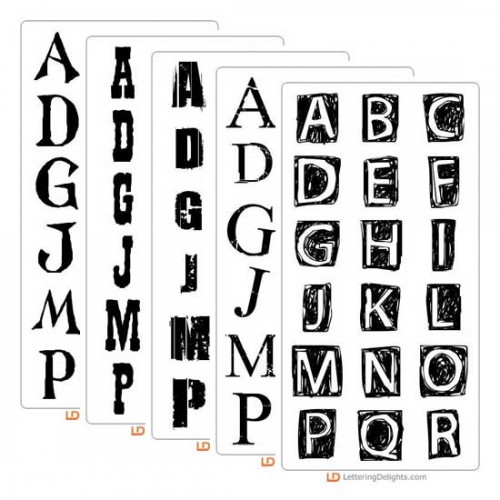
Fall Favs - Fonts
LDJ Scarecrow Scrawl - Font
This scratchy, whimsical new font from Jillustration looks like a scarecrow created it himself...
LD Farfetched - Font
This thick block style true type font has a unique look to it. Download and play with it to create ..
LD Old Country - Font
This old fashion font looks like it belongs on a saloon sign. If you've got old west style photos, f..
LD Grunge - Font
This fun font has a distressed look that is so popular. Give a 'grungy' look to your journaling or t..
LDJ Inclination - Font
You're eyes are not deceiving you...this font has a topsy-turvy style that will tickle your creative..
LD Weathered - Font
"Weathered" is a unique font that you'll want to have in your stash of creative lettering fonts. Its..
LD Verdant Leaves - Font
LD Verdant Leaves is a bold font with leafy designs sprouting from the thick lettering...
LD Woodsy - Font
This fun, bold backwood style font is great for those outdoor scrapbook layouts...
LD Urban - Font
LD Urban may be minimal in it's look and feel, but it's truly maximal in it's possibilities. Becaus..
LD Dirty Dash - Font